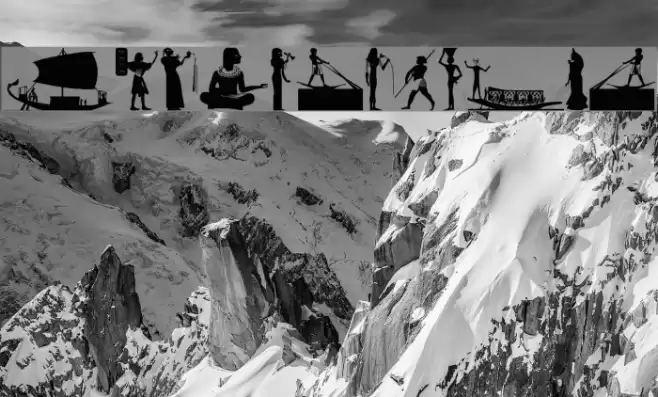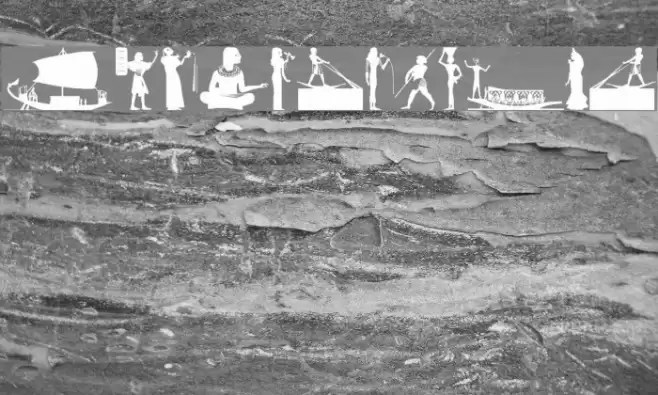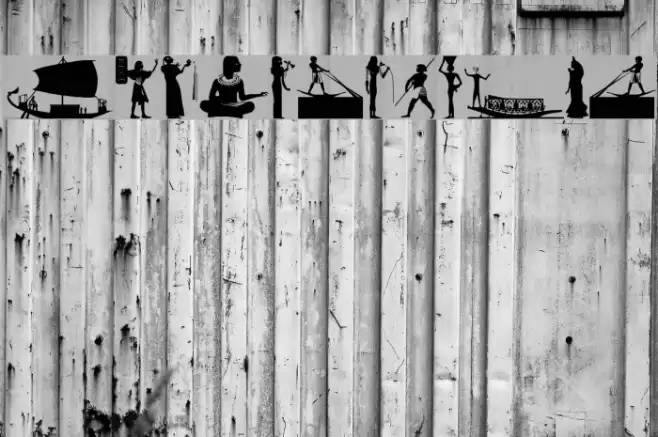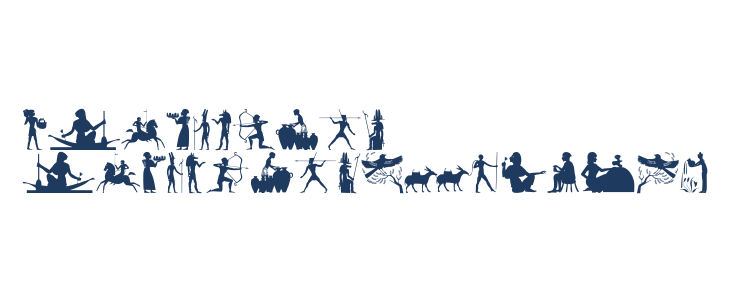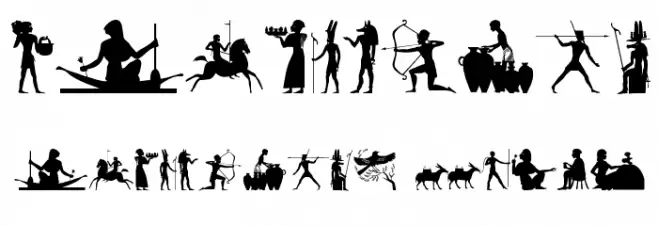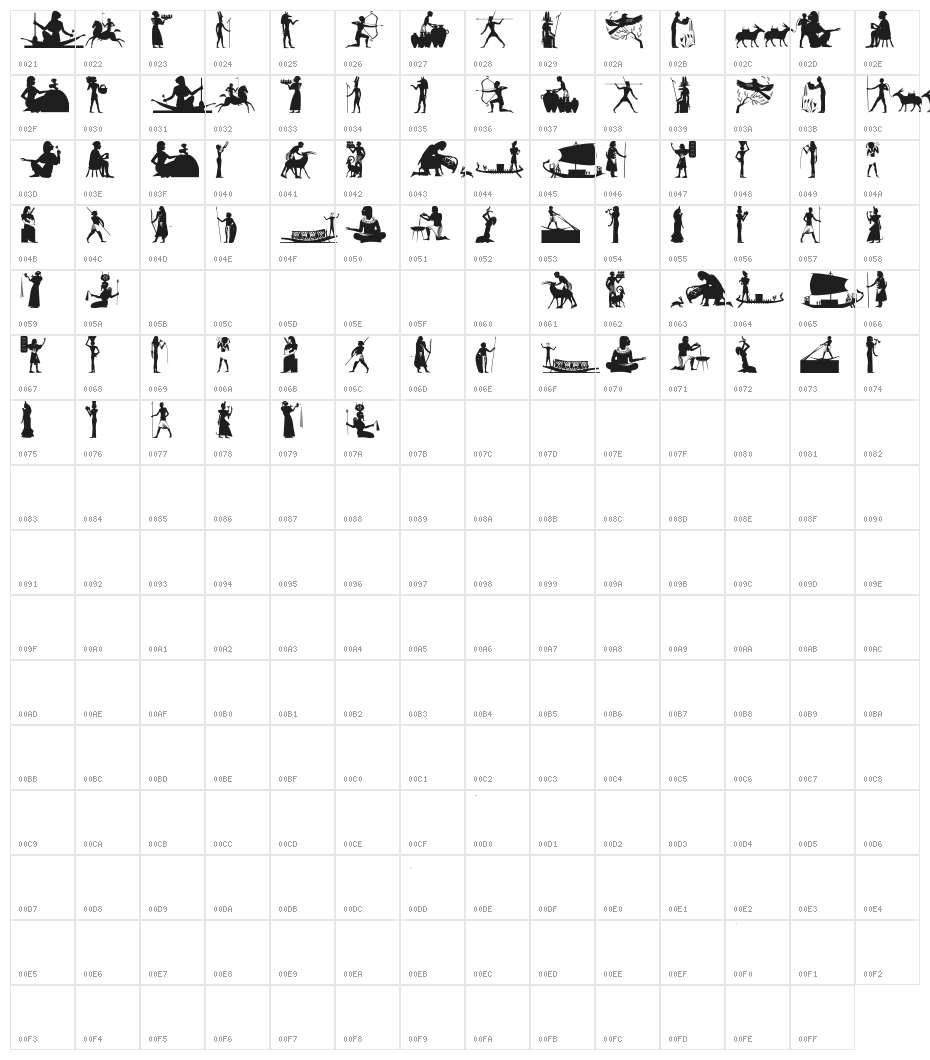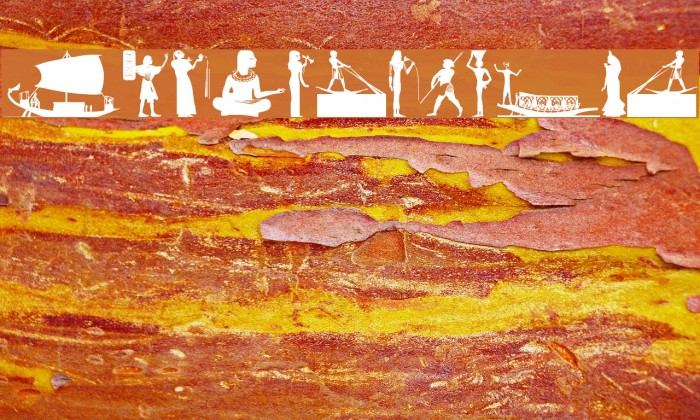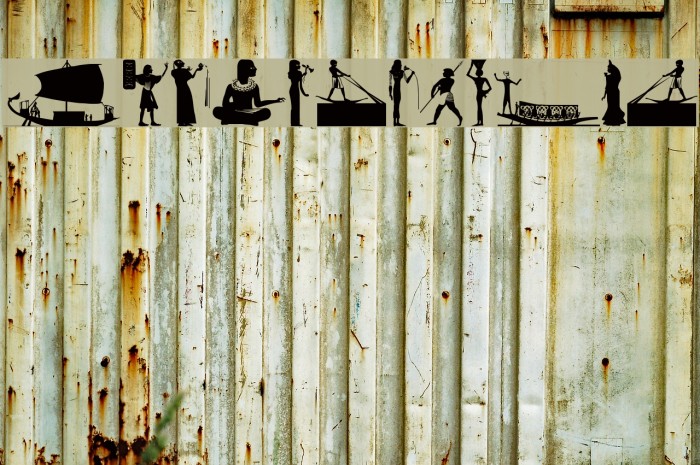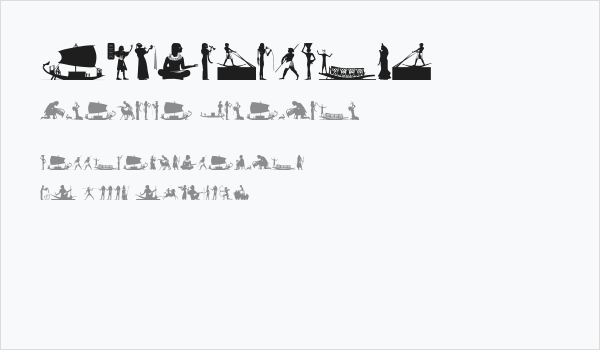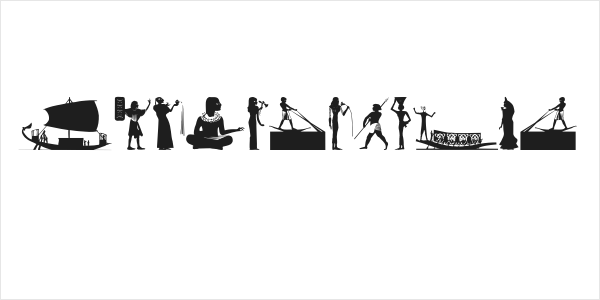
EgyptSilhous Font
EgyptSilhous Description
A decorative display font composed of Egyptian-inspired silhouette illustrations representing each character, featuring figures, animals, boats, and scenes reminiscent of ancient Egyptian art. The glyphs are highly pictorial, with strong black fills and no internal detail, evoking a historical and thematic visual style.
Egyptian-themed silhouette pictogram font with strong visual storytelling from Uncategorized fonts.
- Proposed Projects: Posters, educational materials, themed event invitations, museum signage, historical displays, book covers.
- Overall Style: Decorative, Historical, Thematic
- Use Case: Logos, Headlines, Themed graphics, Educational visuals